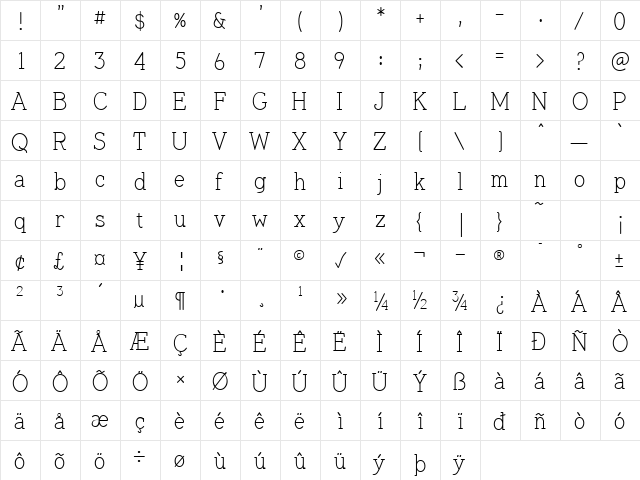
Jennerik Roman Font Preview
Jennerik Roman
Jennerik Roman Font Details
Design Context for Jennerik Typeface
Jennerik takes a measured approach to typography — its balanced proportions and neutral character make it a reliable workhorse for both digital and print work.
Pro Tip: Use Jennerik in both headline and body roles to test its range before committing to a single application.